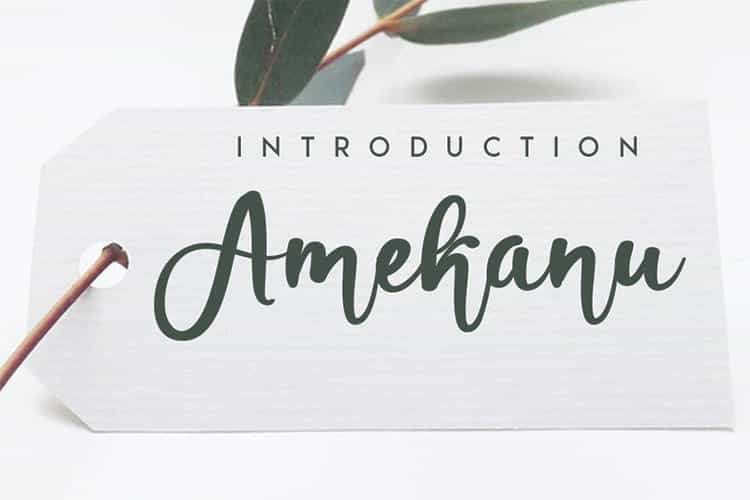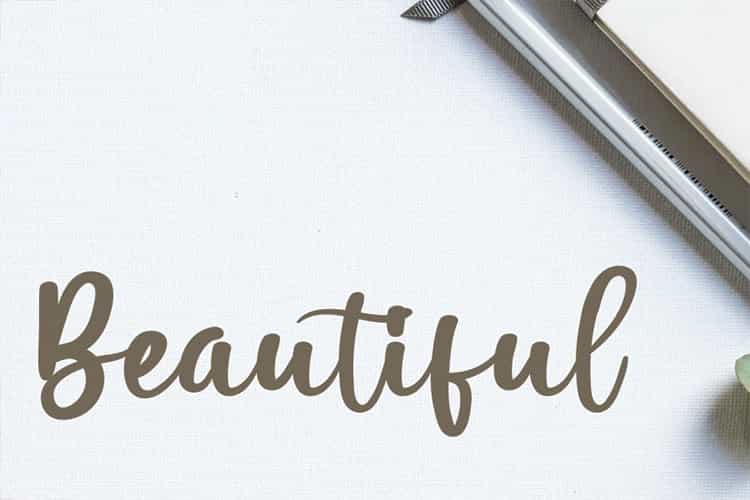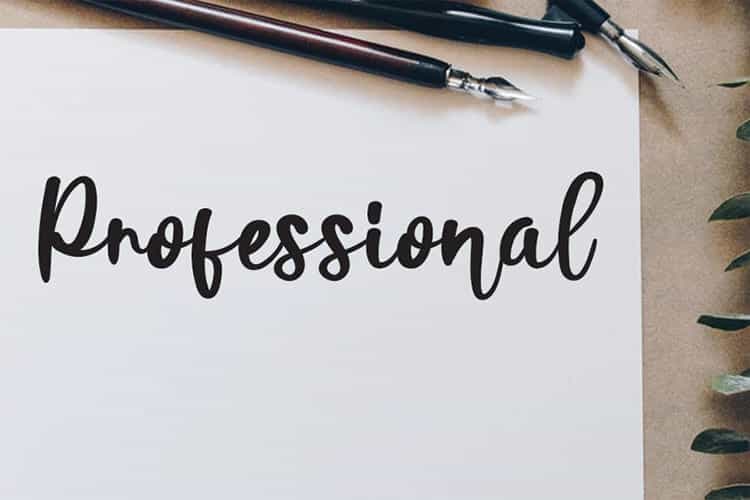
Discover Amekanu Handwritten Script Font, part of the Calligraphy Handwritten Script collection—a versatile and unique font perfect for adding a personal touch to your projects. Download it for free and enjoy crafting designs with style, from invitations to social media posts. This font is available exclusively for personal use, giving you the freedom to create without limits. Unlock your creativity with Amekanu Handwritten Script Font today!
Amekanu is an original typeface based on traditional typography. This excellent font is perfect for headlines of all sizes and has both maximum and minimum variation for block text. Whether you use it for screens, print or anything else, it’s sure to capture the eye.